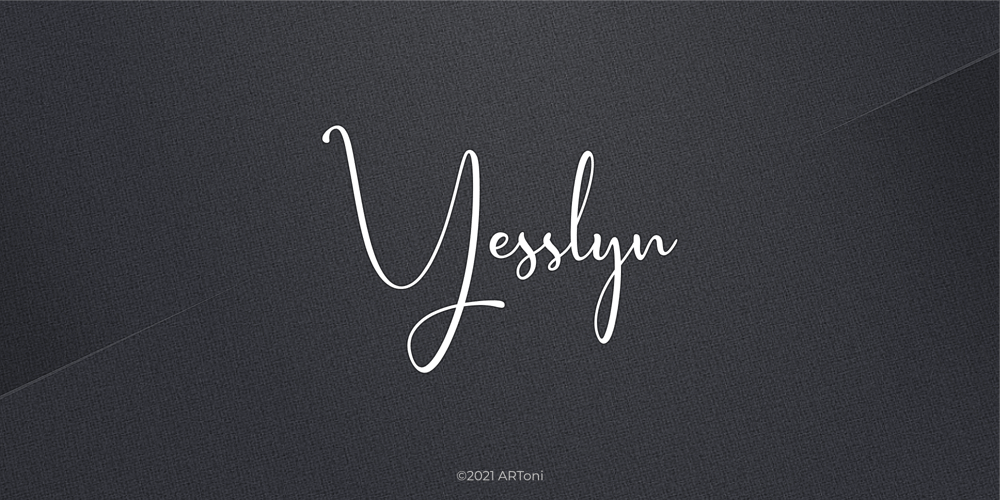
Yesslyn Font Family was designed by Anthonie Van Hayu and published by ARToni. Yesslyn contains 1 styles and family package options. Yesslyn is a lovely and delicate script font that exudes elegance and class. This font was particularly crafted for those who need a beautiful and refreshing look to their designs